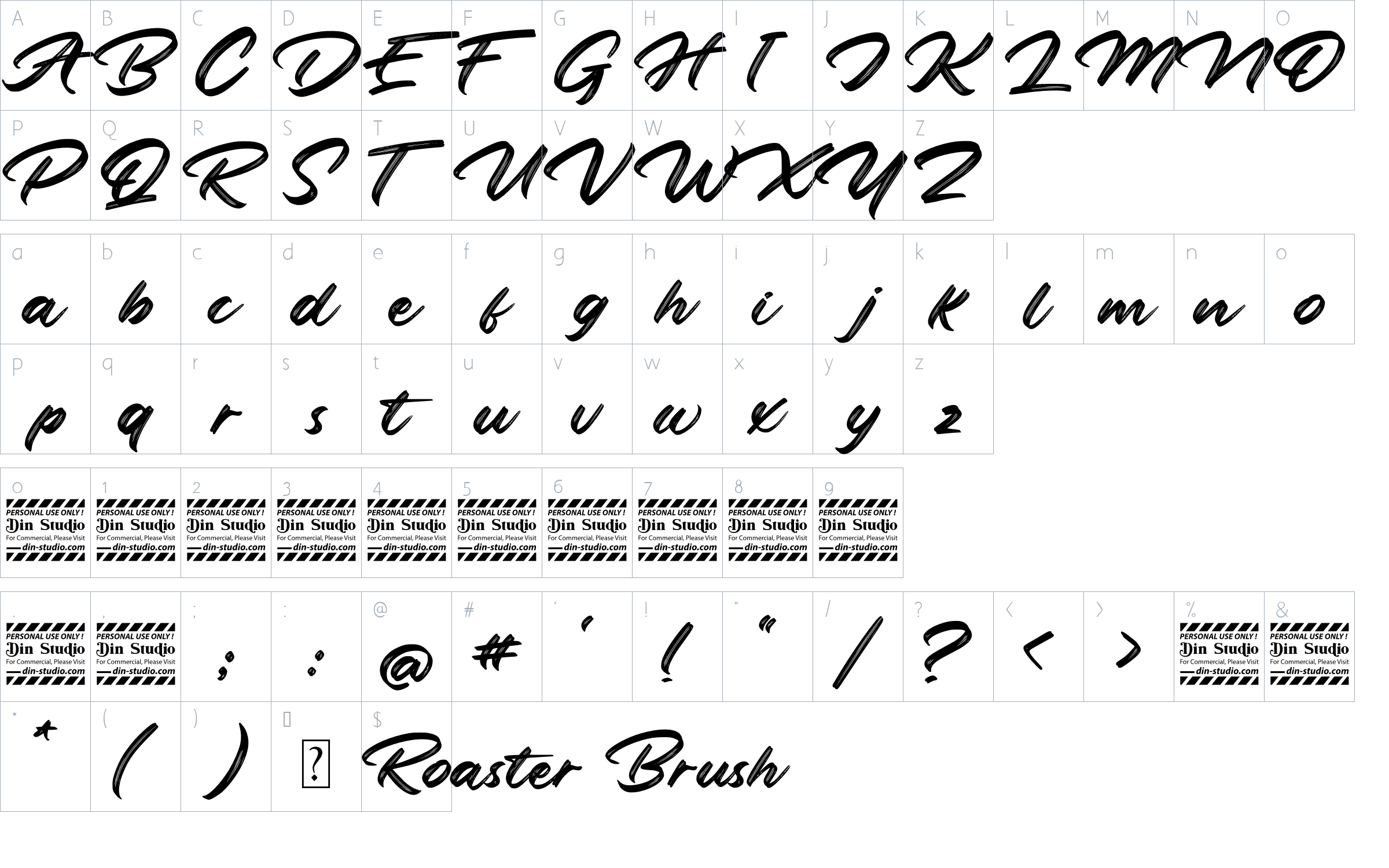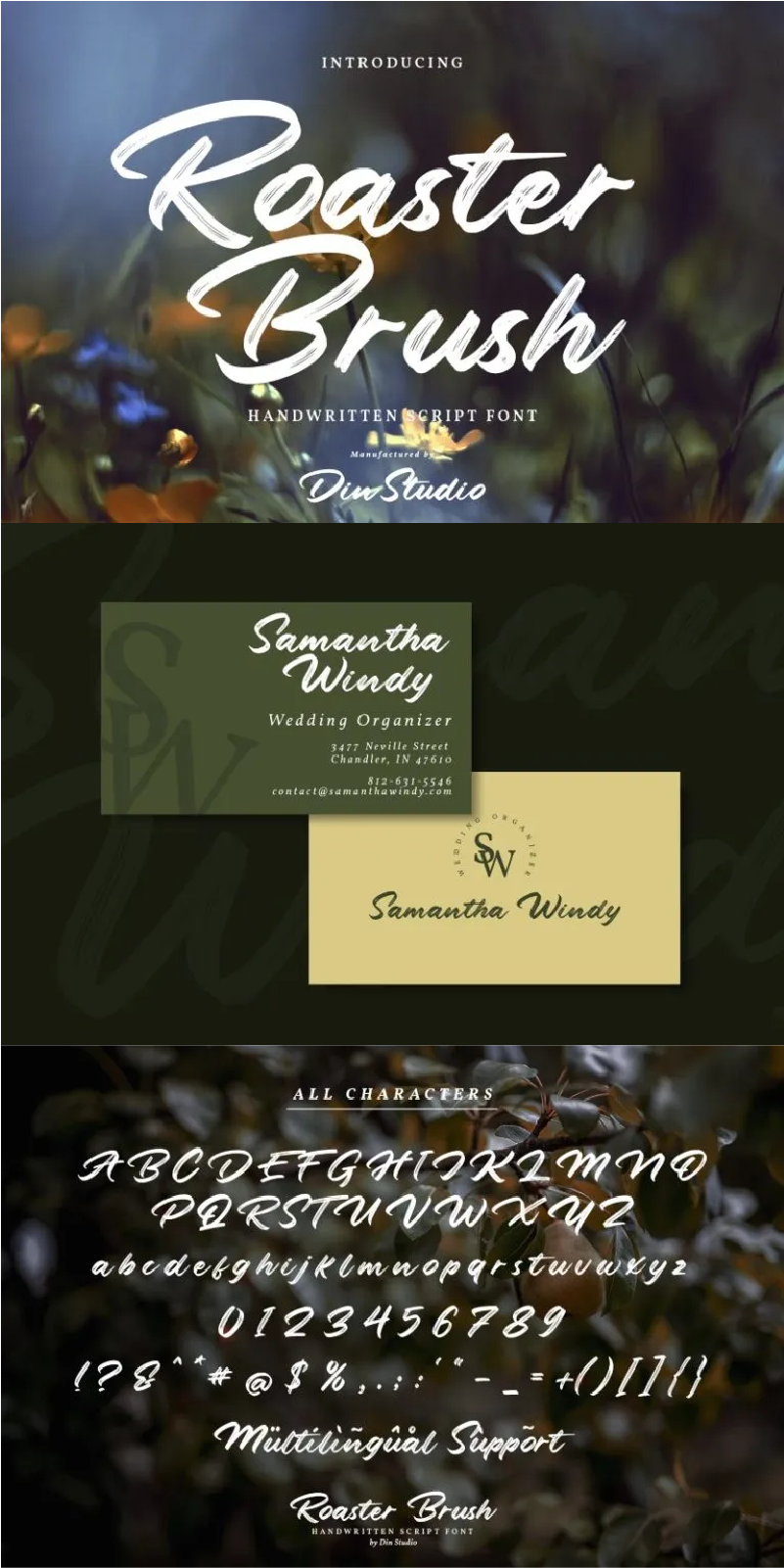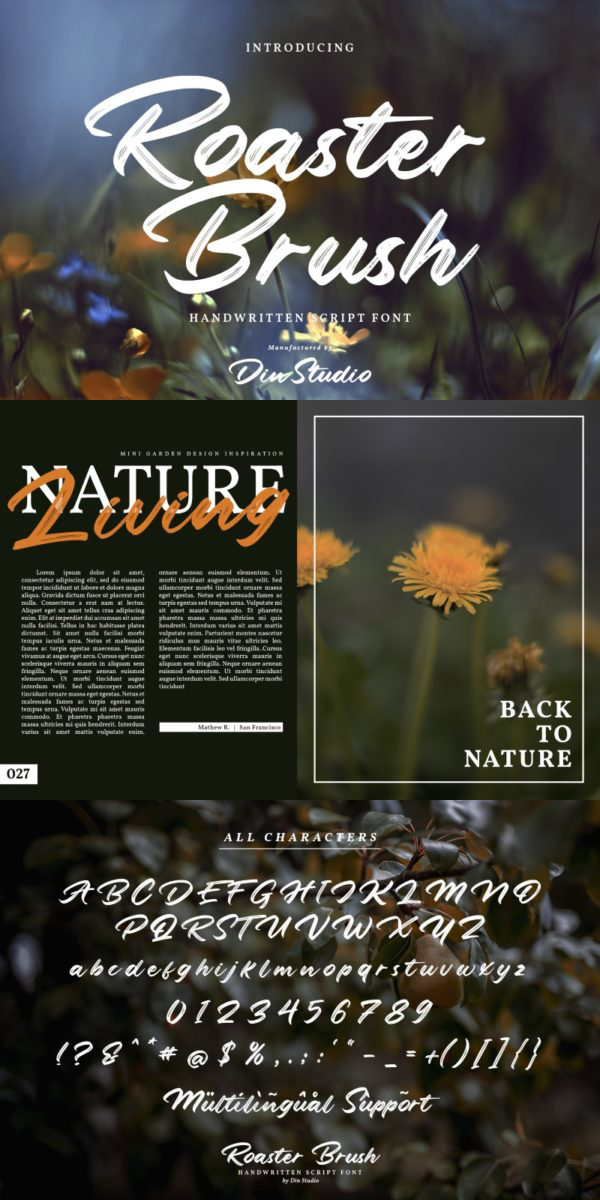
Roaster Brush Font
About Roaster Brush
Roaster Brush – an Elegant Handwritten font. The combination of handwritten and brush fonts make your design projects more attractive since it is made for any professional project brandings, for instance logos, brandings and quotes. Every letter has a unique and beautiful touch. See the previews above to get some inspiration on how you can use them. Happy designing!